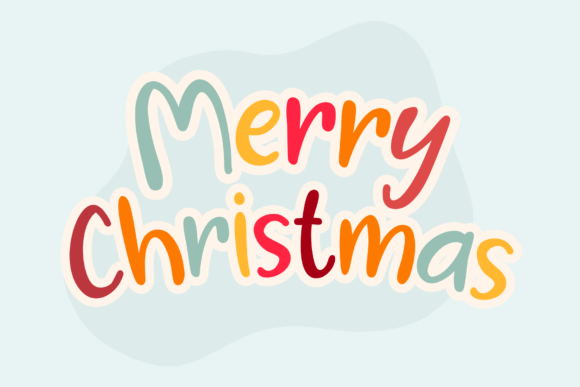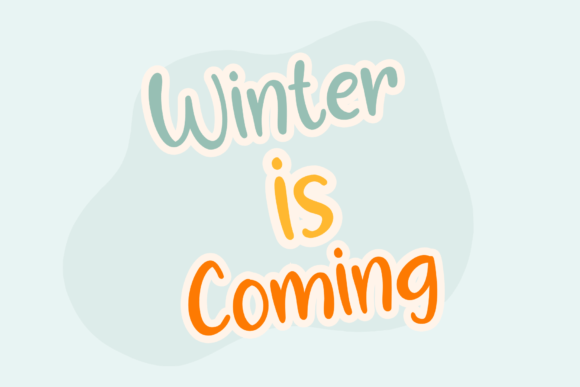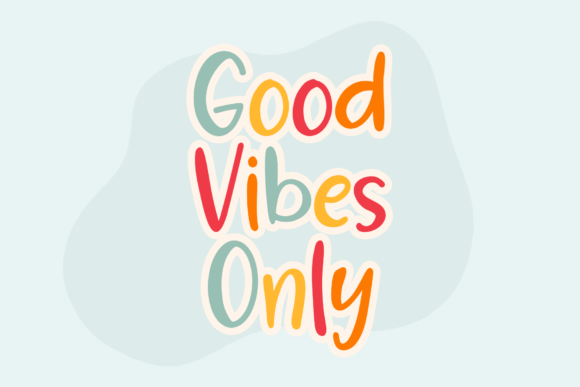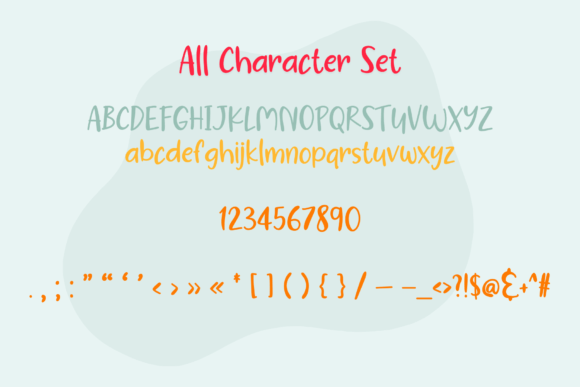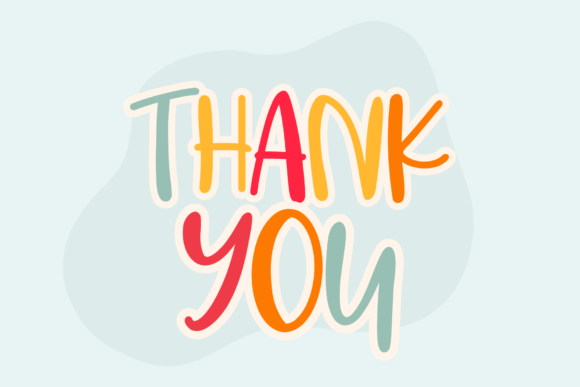
Unlocking the Magic of Handwritten Typography
As a designer, there’s nothing quite like the thrill of discovering a font that perfectly captures the essence of your creative vision. For me, it was the moment I stumbled upon the Jesus Font – a beautiful, handwritten typeface that exudes playfulness and authenticity. I remember thinking, ‘This is it, this is the one!’ and I knew I had to learn more about it.
The Jesus Font is more than just a pretty face – it’s a versatile and reliable choice for designers who want to add a personal touch to their projects. Whether you’re crafting blog posts, logos, or branding materials, this font is sure to bring a unique charm to your designs. Its value lies in its ability to convey a sense of approachability and friendliness, making it a go-to choice for designers who want to connect with their audience on a deeper level.
Jesus Font Key Features
- Font Family: Jesus Font is a custom, handwritten font designed specifically for use in various digital and print media.
- Unique Characteristics: Jesus Font features a distinctive, handwritten style with varying line widths, flourishes, and subtle texture, making it ideal for creative and expressive designs.
Jesus Font Review
As a designer, I have to say that I’m intrigued by the “Jesus Font” – a sans-serif typeface that’s been making waves in the design community. Let’s dive in and see what makes it tick.
- Unique flair: The Jesus Font has a distinct, hand-drawn feel that sets it apart from other sans-serifs.
- Legibility: Despite its unconventional design, the font is surprisingly readable at various sizes and resolutions.
- Expressive: The font’s irregularities give it a human touch, making it perfect for creative projects that need a personal touch.
- Limited versatility: The Jesus Font’s unique design may not be suitable for corporate or formal projects where a more traditional font is preferred.
- Not ideal for body text: While the font is great for headlines and titles, it may not be the best choice for large blocks of body text due to its irregularities.
- May require adjustments: Depending on the project, you may need to adjust the font size, line spacing, or letter spacing to get the best results.
Overall, the Jesus Font is a great choice for designers who want to add a touch of personality to their projects. While it may not be suitable for every project, it’s a unique and expressive font that’s worth exploring.
Tips for Getting the Most Out of the Jesus Font
Use the Jesus Font to create inspirational quotes and messages.
Pair the Jesus Font with a simple background to create a clean and modern design.
Experiment with different font sizes and colors to create visual interest and emphasis.
The Jesus Font is commonly used in:
Inspirational quotes and messages.
Christian-themed designs and graphics.
Wedding invitations and ceremony programs.
Carolyna Pro is a modern sans-serif font that offers a clean and elegant look. It is ideal for use in digital products, branding, and advertising where a professional and sophisticated feel is desired. Compared to Jesus Font, Carolyna Pro has a more refined and polished appearance, making it suitable for high-end designs.
Montserrat is a geometric sans-serif font that originated in Buenos Aires. It is great for use in urban and modern designs where a strong and edgy feel is required. Compared to Jesus Font, Montserrat has a more aggressive and bold appearance, making it suitable for headlines and titles.